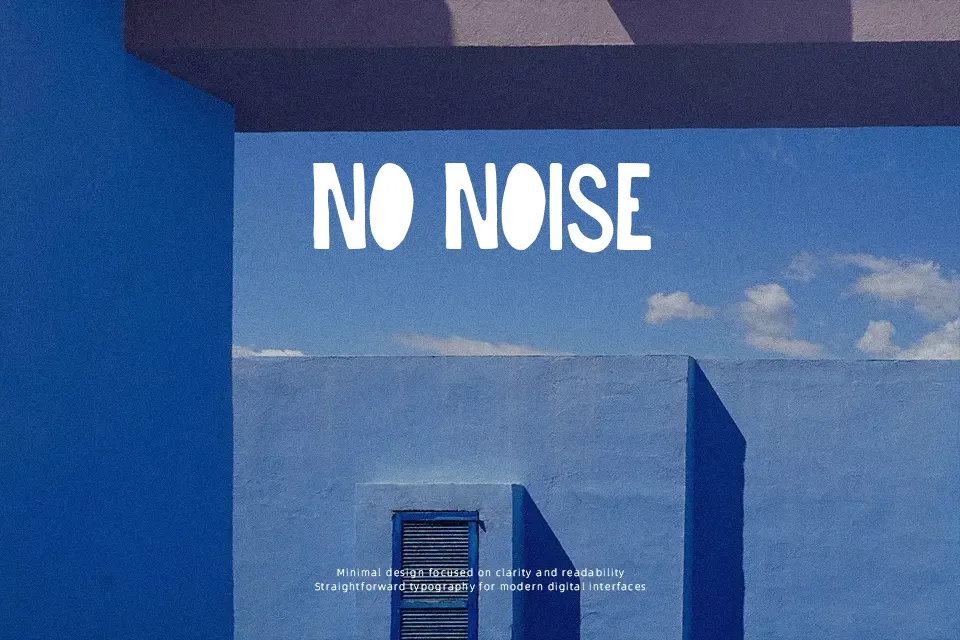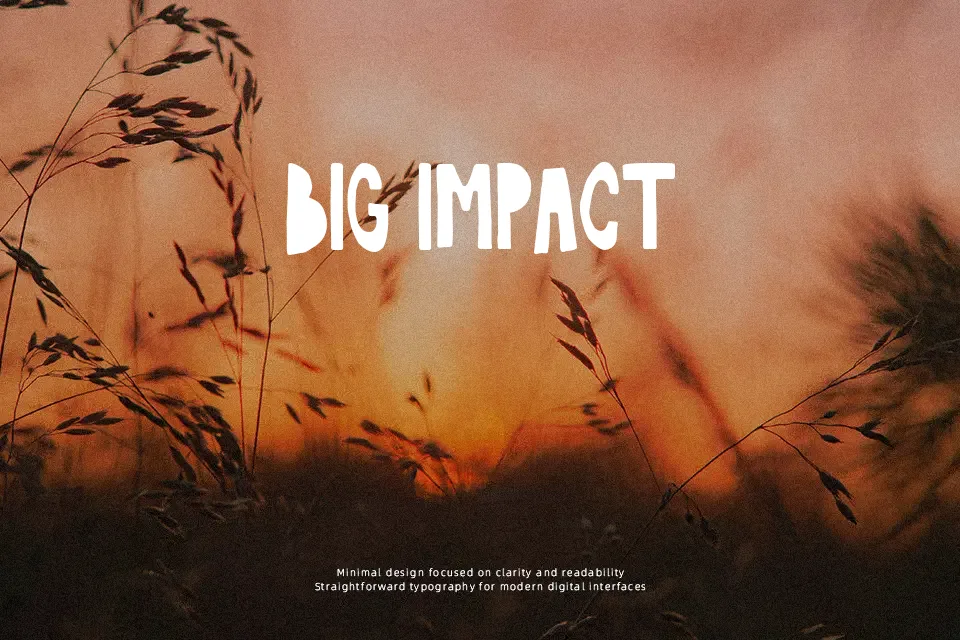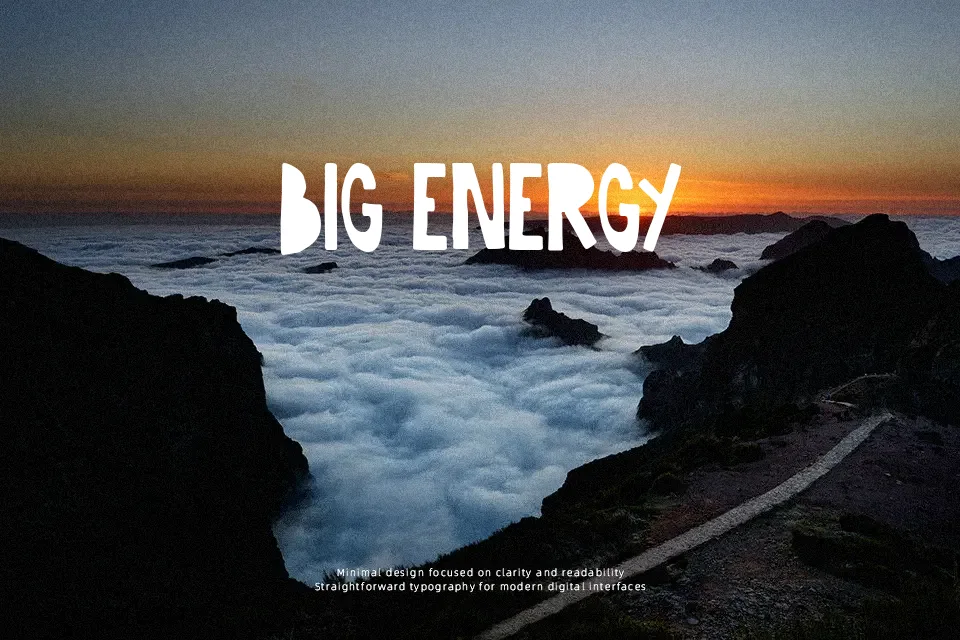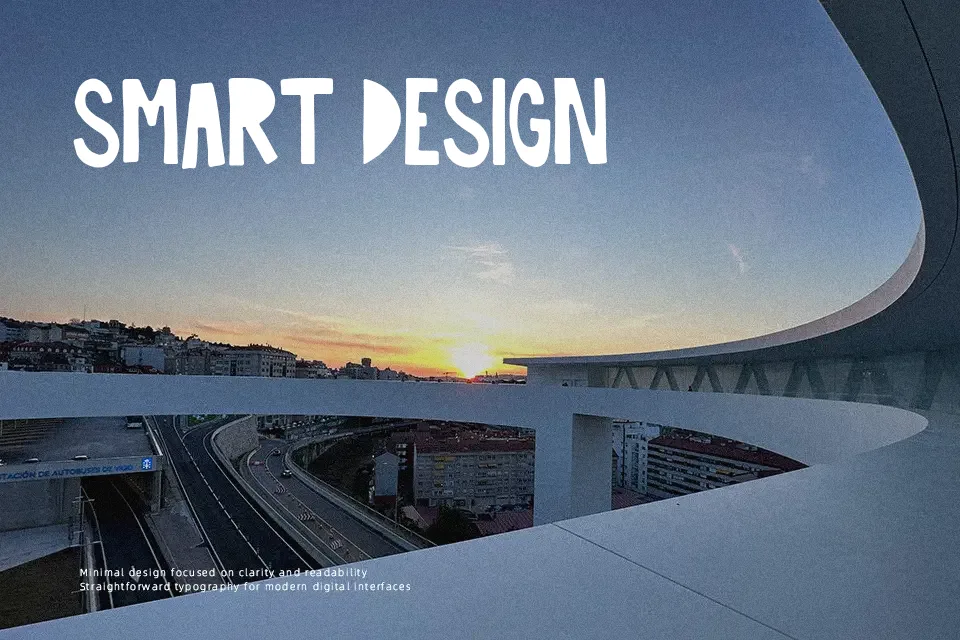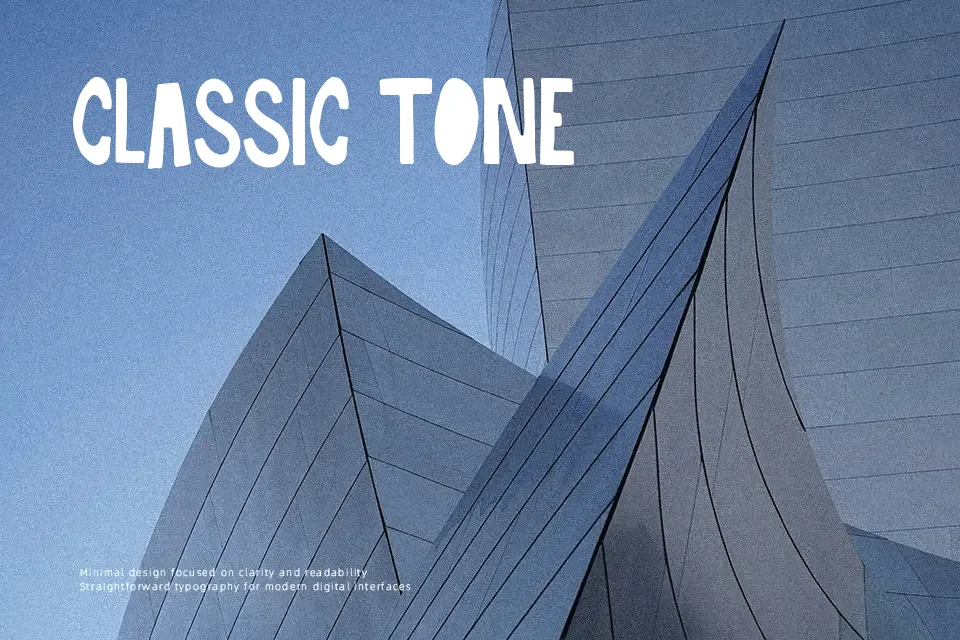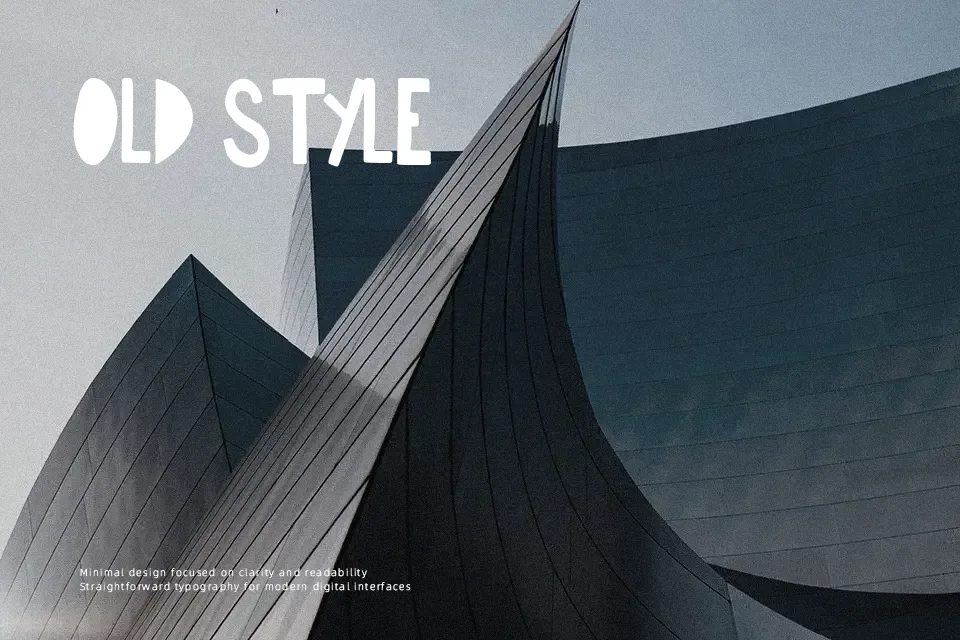
Big Holidays Font
Big Holidays leans into bold, blocky shapes with soft corners and a slightly uneven, hand-drawn structure that feels casual and cartoon-like rather than polished. The strokes are thick, the counters are generous, and the spacing is fairly tight, so it quickly fills space and pushes attention toward short words or playful slogans. This decorative style works well on Christmas banners, kids’ gift tags, party invitations, seasonal thumbnails, and simple logo marks where legibility at a glance matters more than subtle nuance. It struggles, however, in long paragraphs, small captions, or formal brand systems, where its heavy, bouncy letterforms start to feel noisy and tiring. Use it as a loud accent, not as a typographic workhorse.
holiday card titles
kids party invitations
festive poster headlines
seasonal social media graphics
formal corporate branding
small UI labels or captions
serious editorial layouts
Perfect for christmas, holiday, and logo, with a bold and cartoon style.